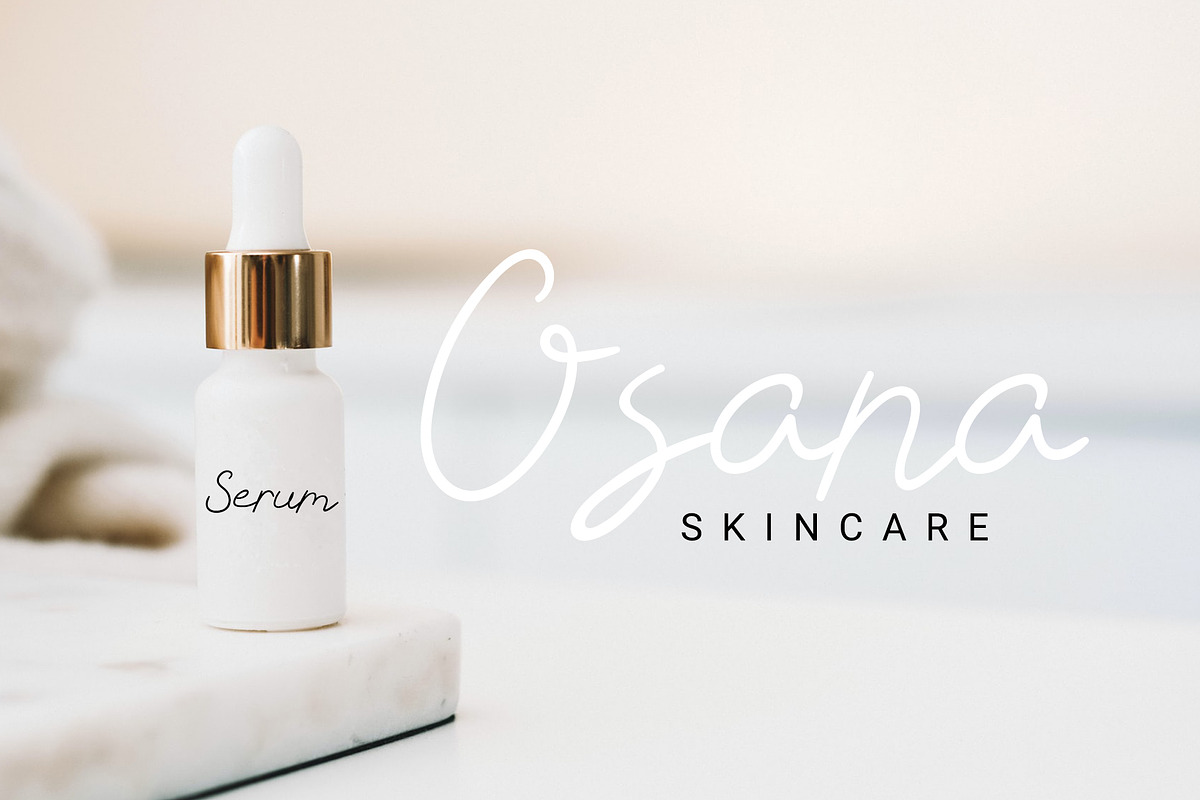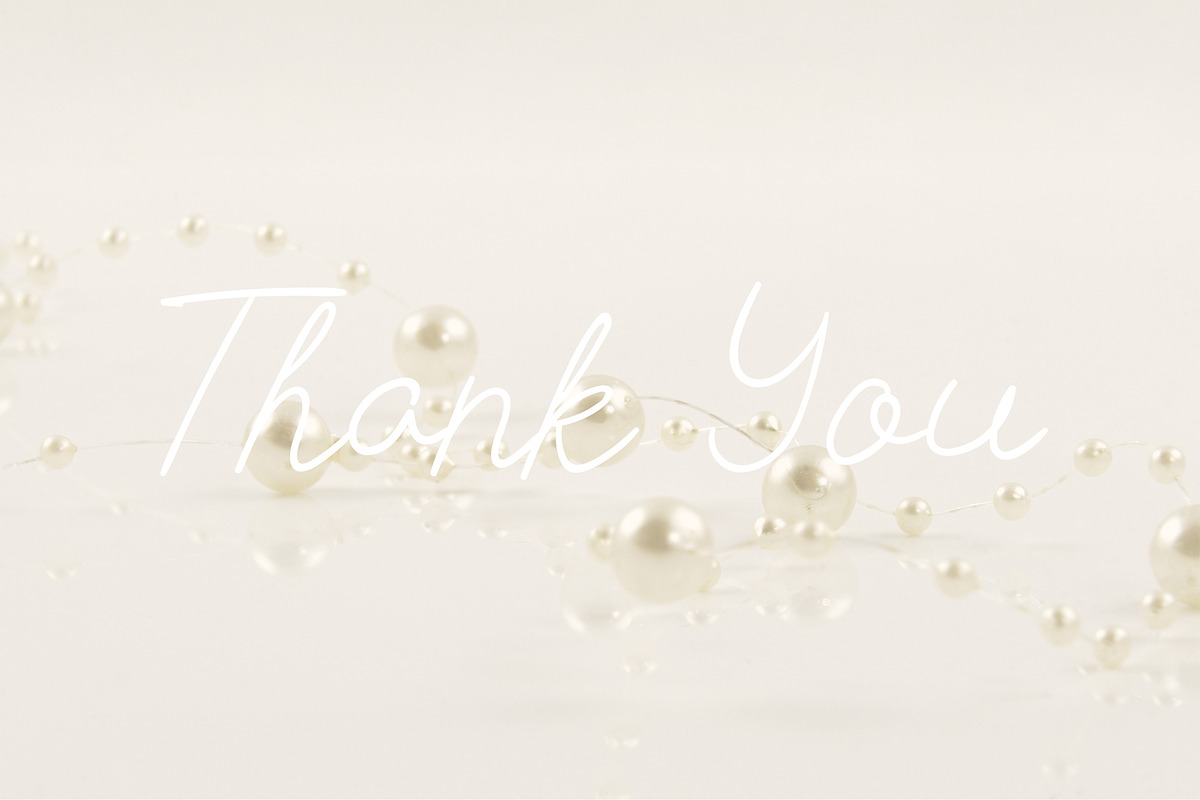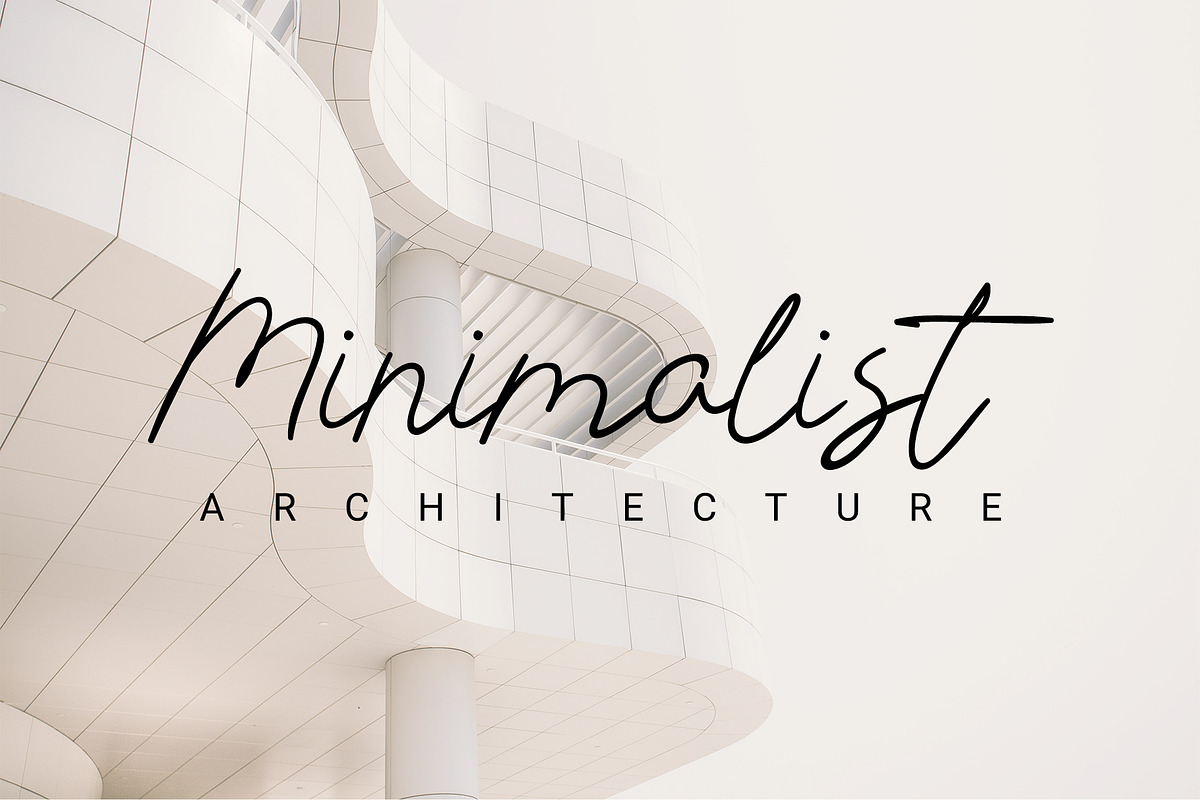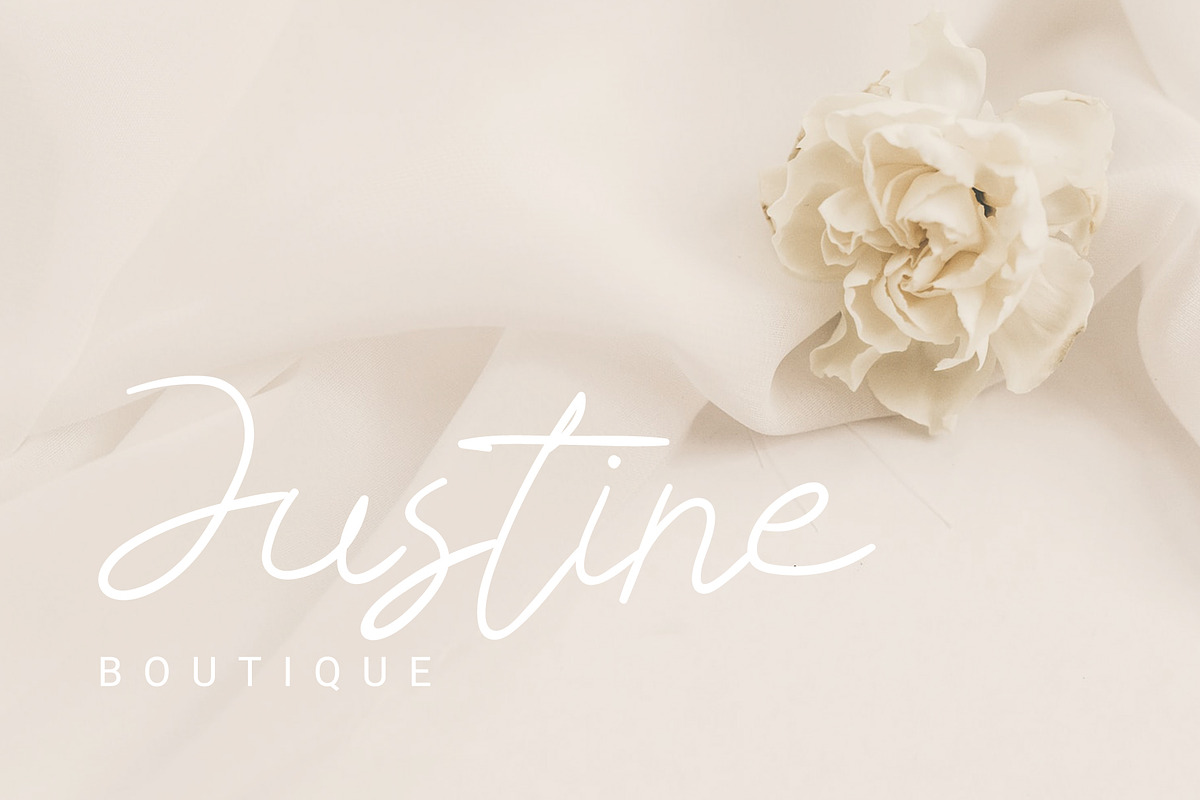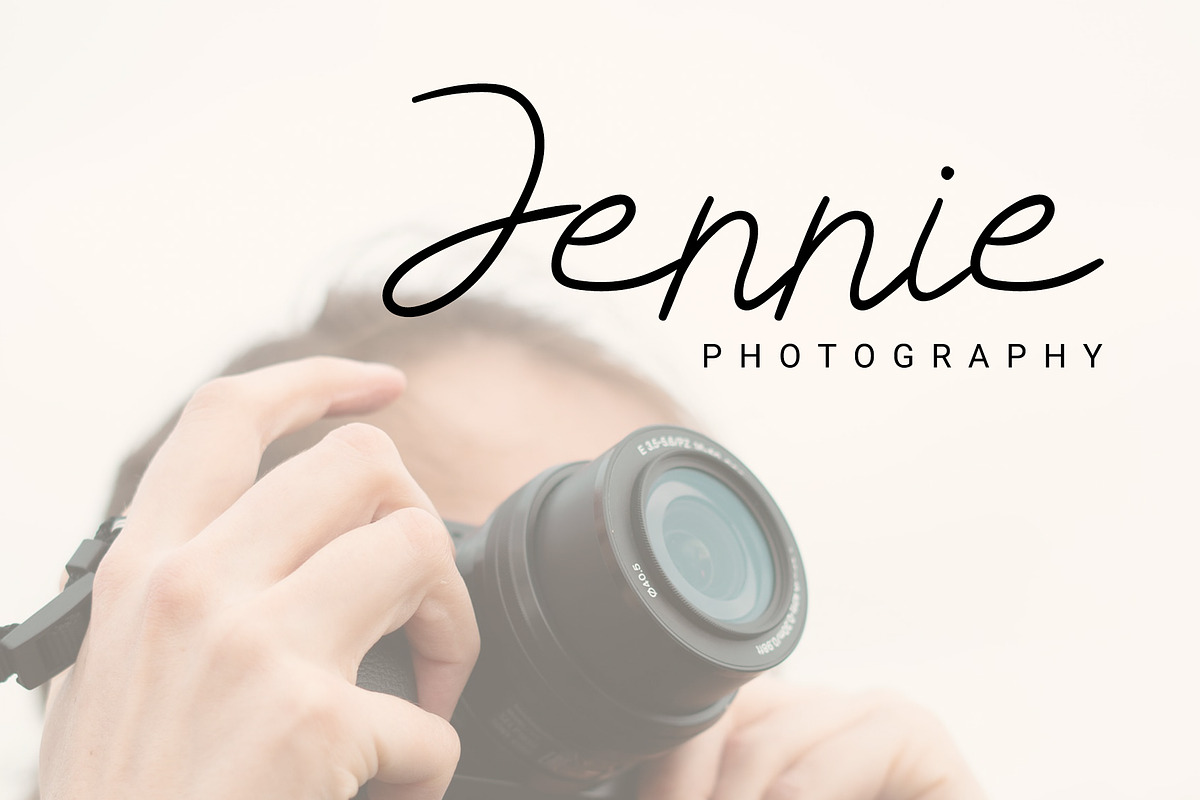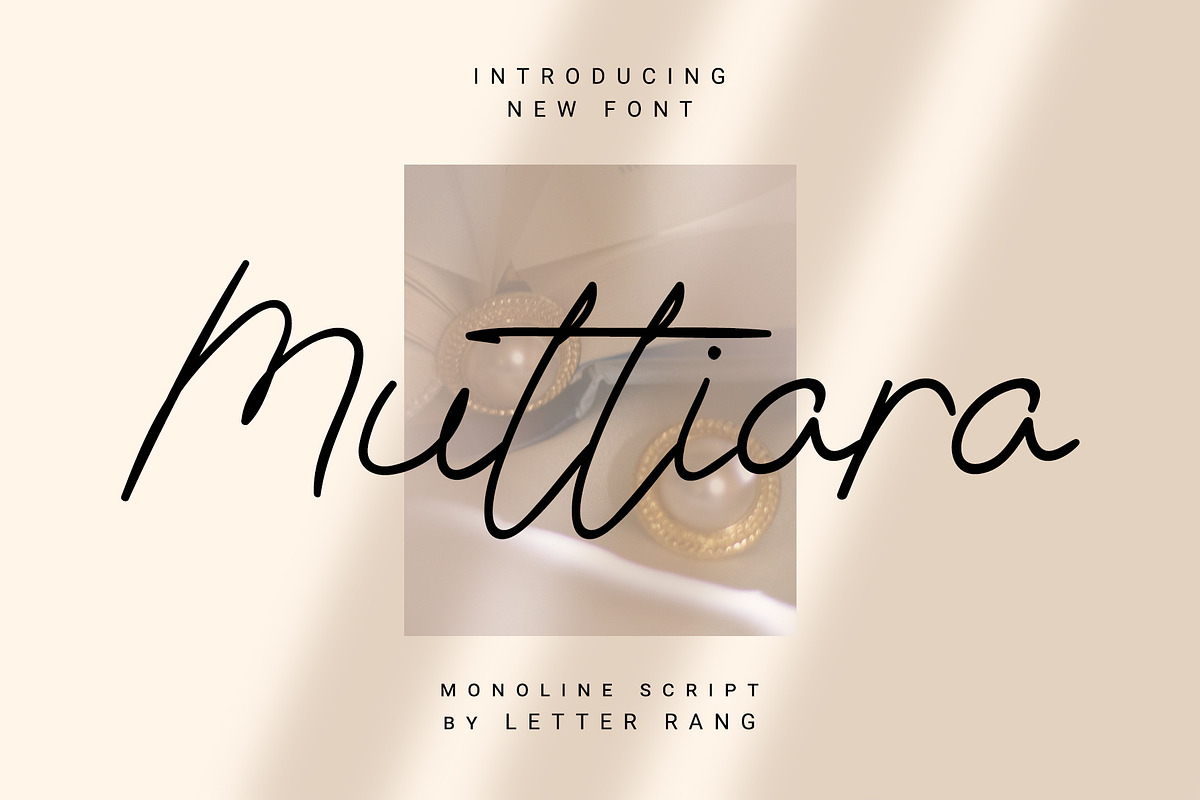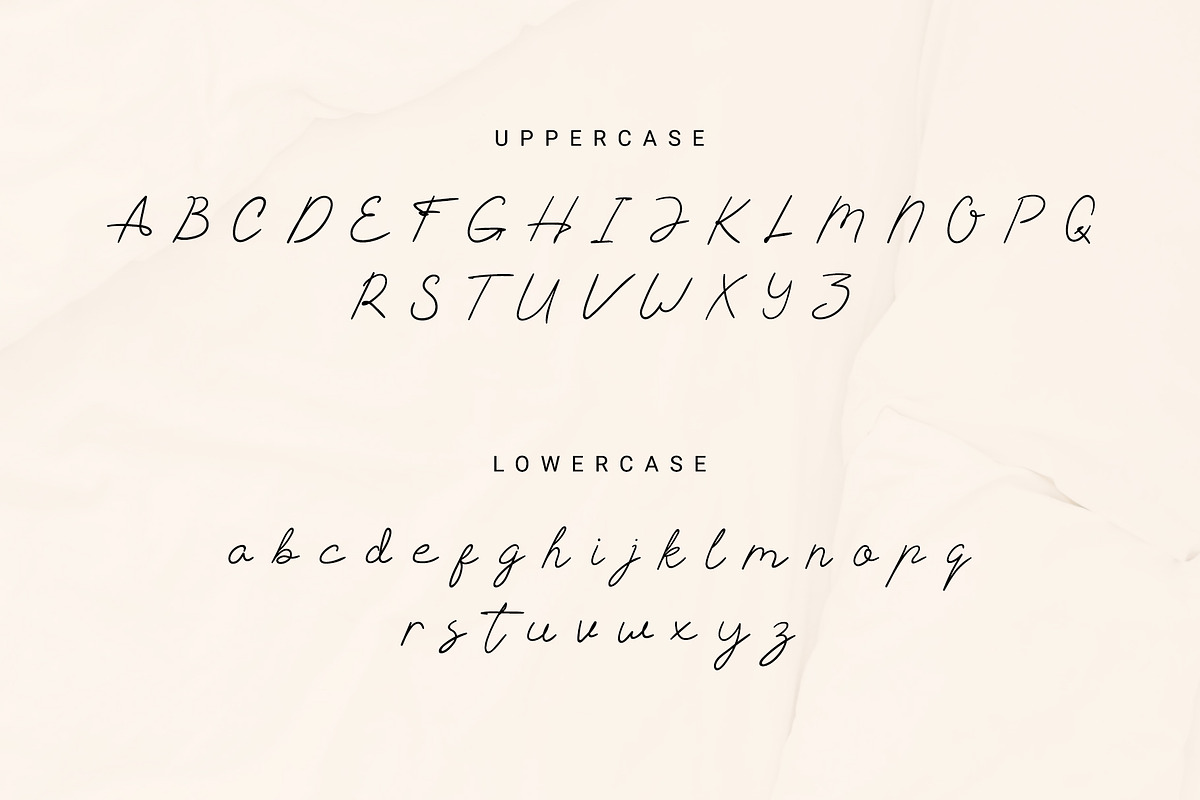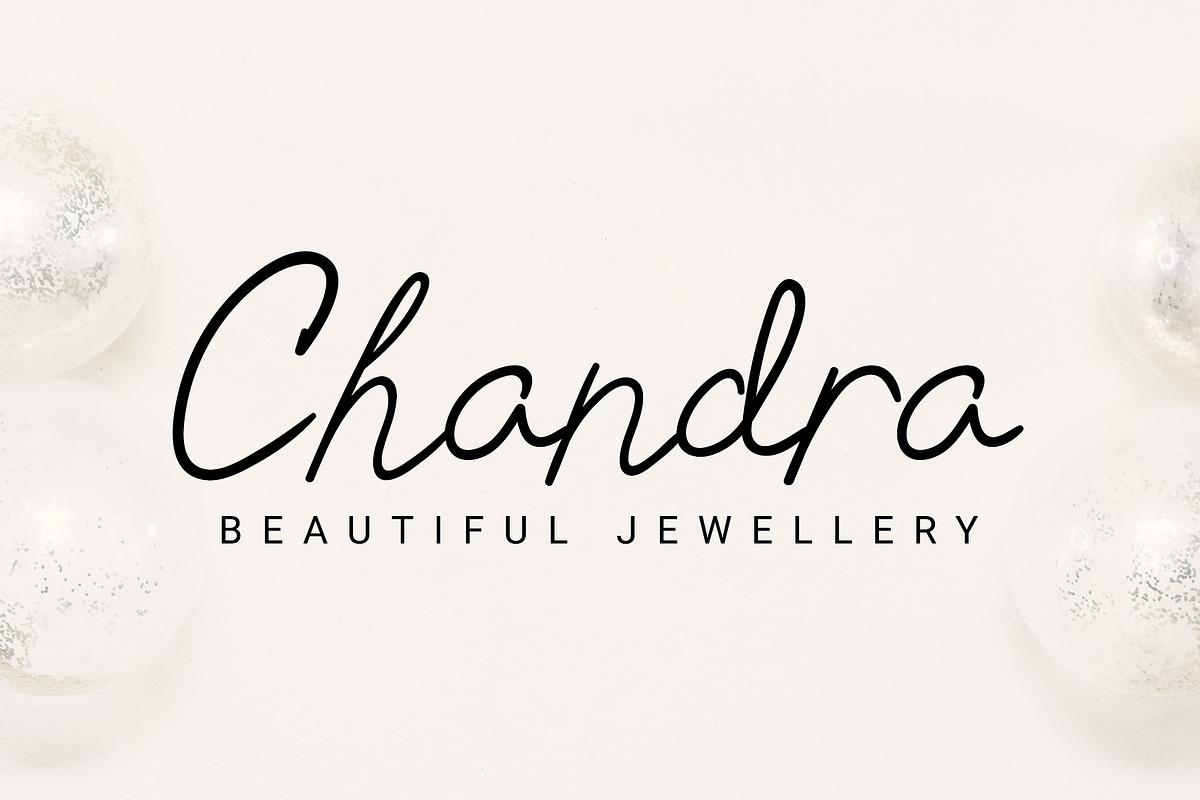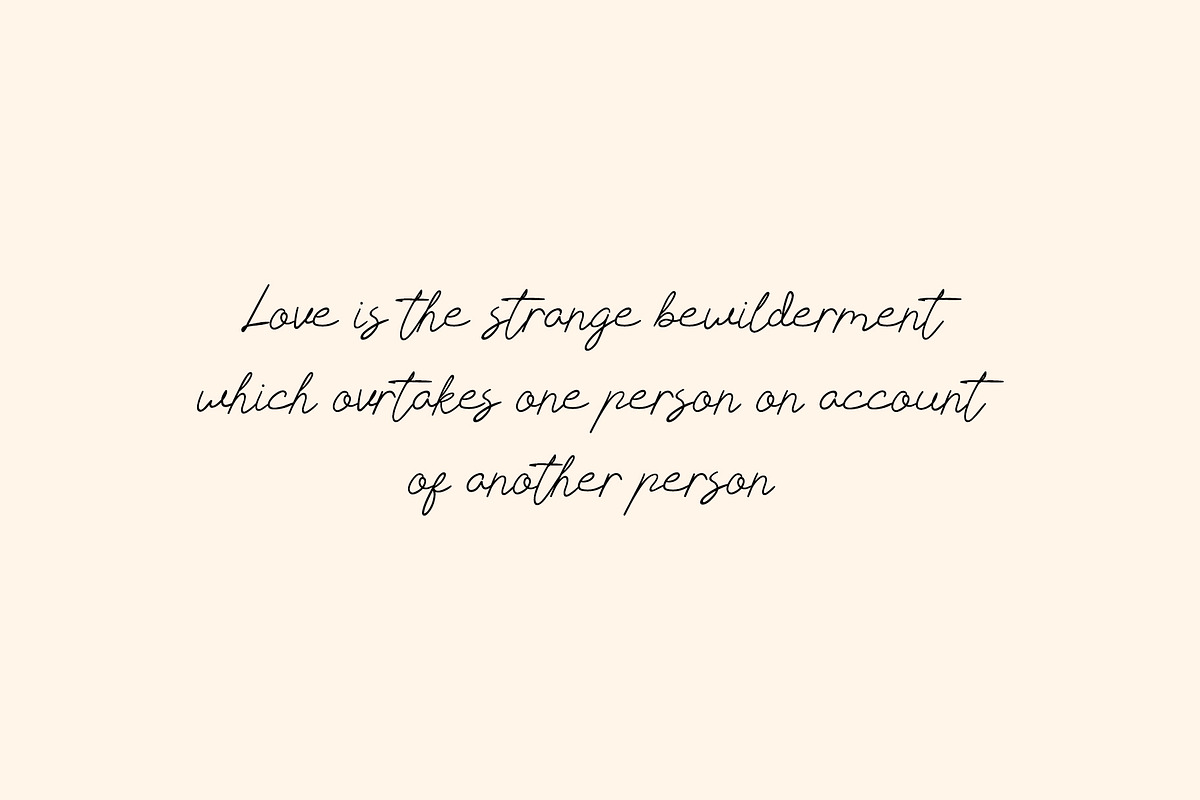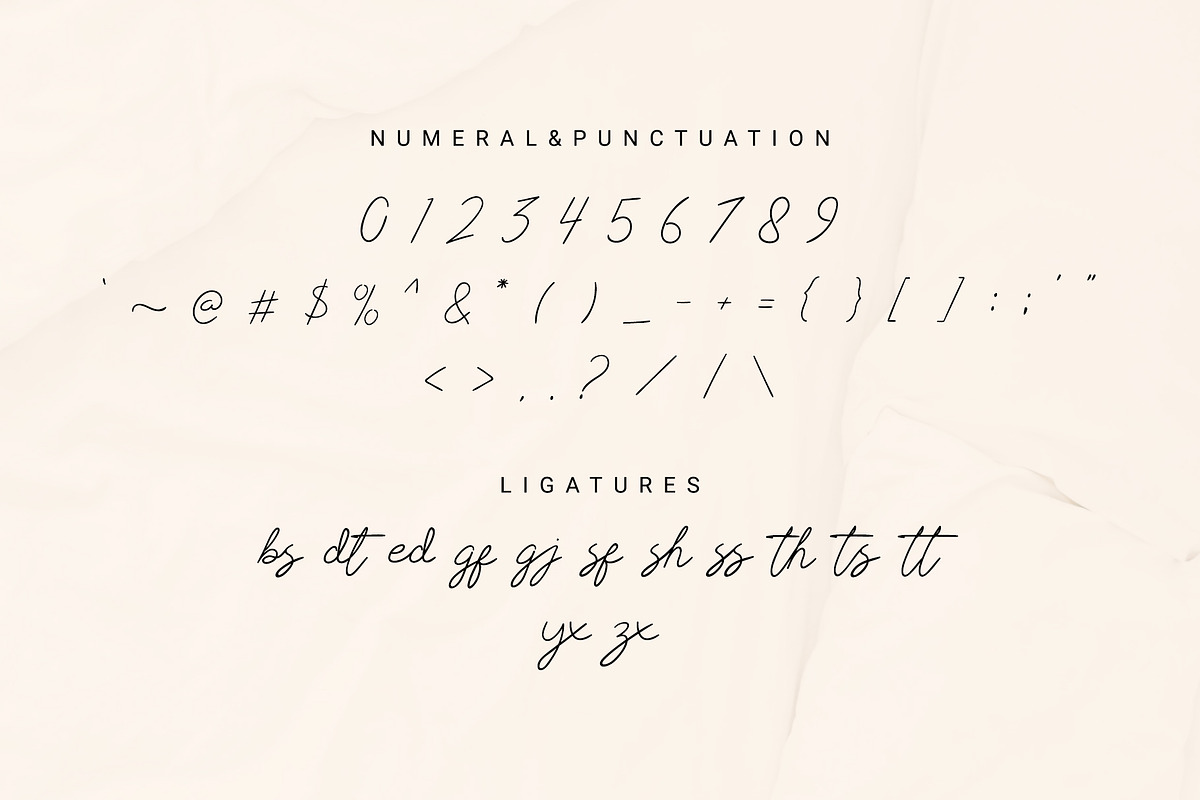
Muttiara | monoline script
Muttiara
Muttiara is a line font with a feminine and minimalistic style. This font is perfect for branding, powerpoint titles, cake and plant shop branding, wedding invitations, birthday invitations and more.
- Unique Ligature